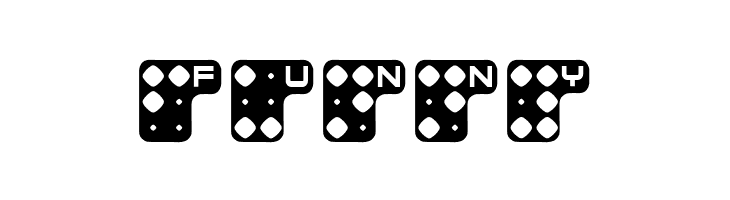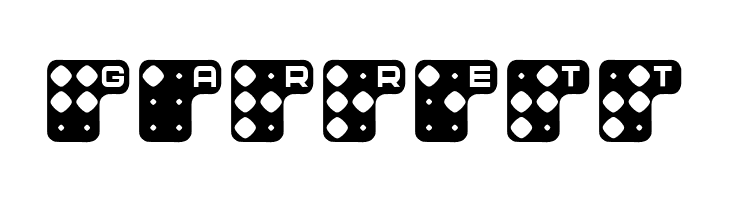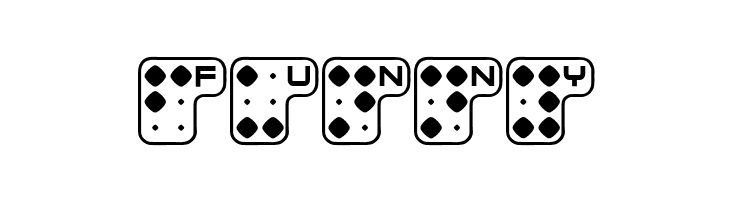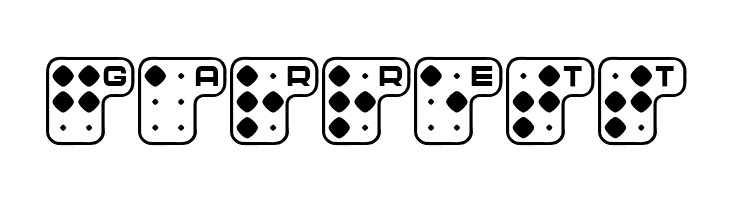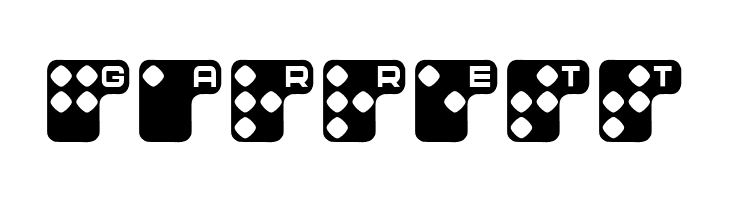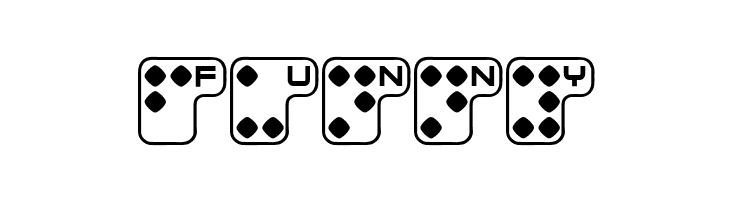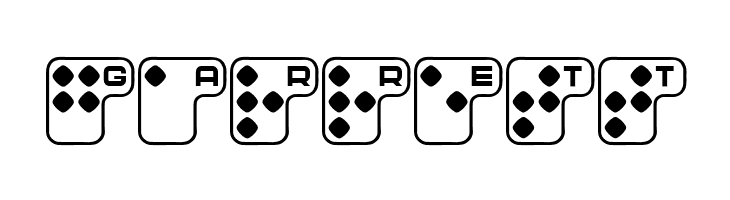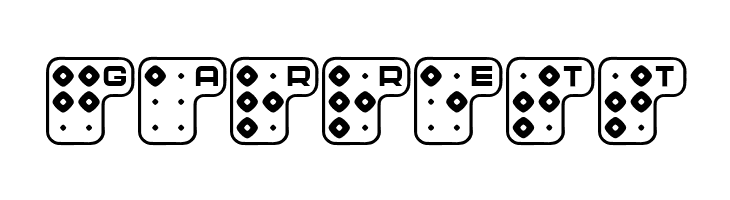
• Brailler Light Regular
A visually styled Braille font with enclosed characters for educational and design purposes.
• Brailler Regular
A decorative font inspired by Braille, featuring bold dot patterns.
• Brailler V1 Light Regular
A visually styled Braille font with rounded rectangles and consistent dot patterns.
• Brailler V1 Regular
A visually striking font that combines Braille dots with a bold, modern design.
• Brailler V2 Light Regular